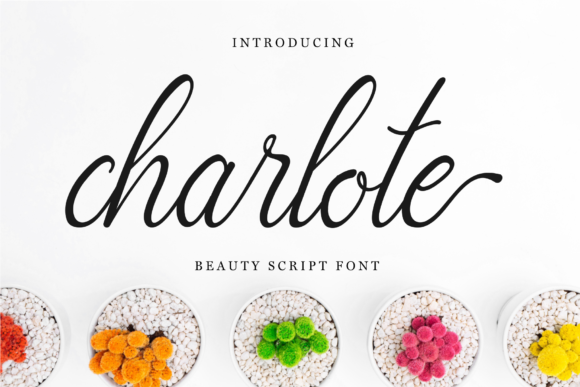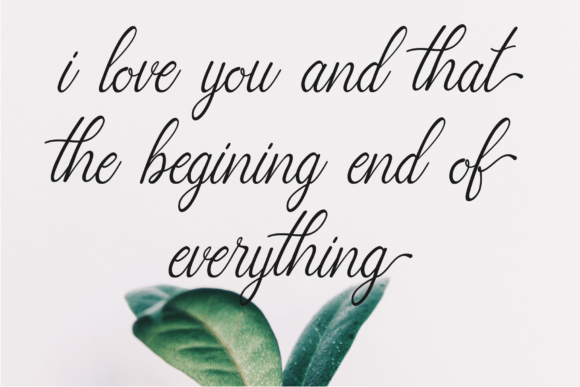
About Charlote Script Font
Charlote Script is a delicate script font with a relaxed theme, featuring a lovely style. No matter the topic, this font will be an incredible asset to your fonts’ library, as it has the potential to elevate any creation. Charlote Script is PUA encoded which means you can access all of the glyphs and swashes with ease!Â